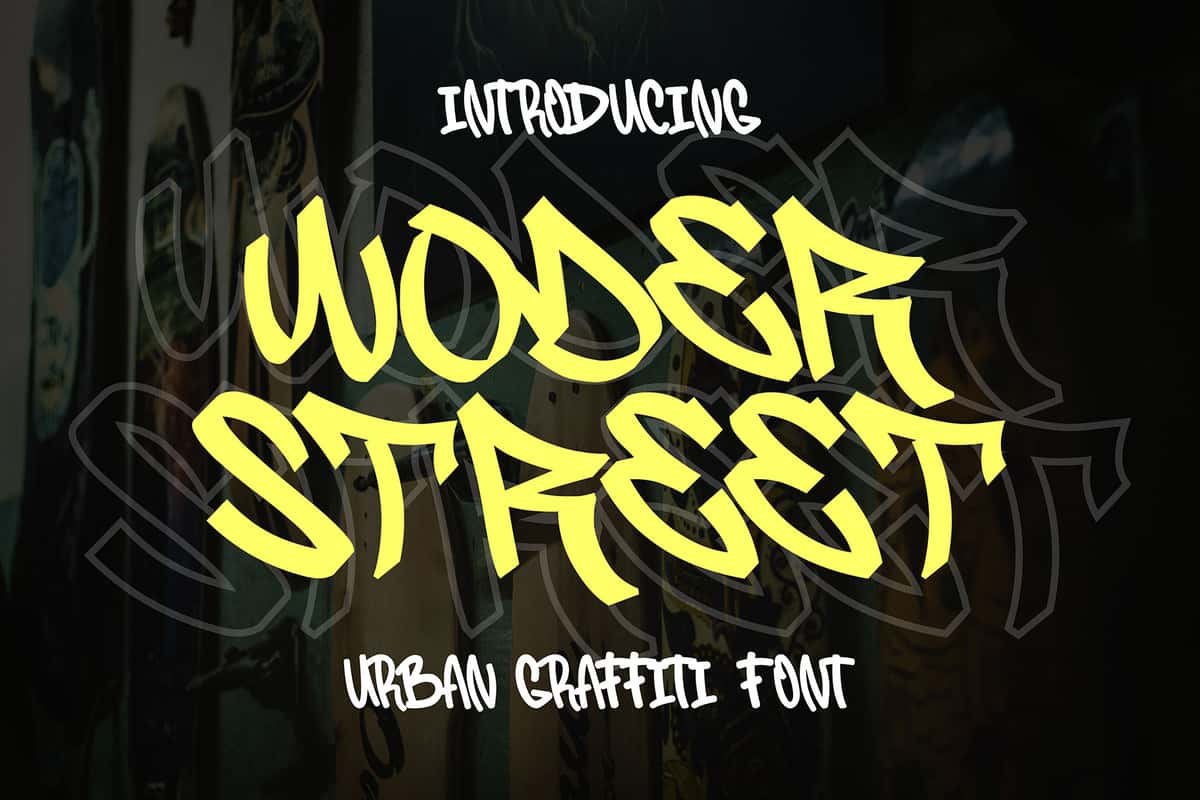
Woder Street
Step into the vibrant world of urban expression with Woder Street – the graffiti font that embodies the pulse and rhythm of city life. Infused with raw energy and bold strokes, Woder Street is more than just a font – it's a gateway to the dynamic and ever-evolving culture of street art.